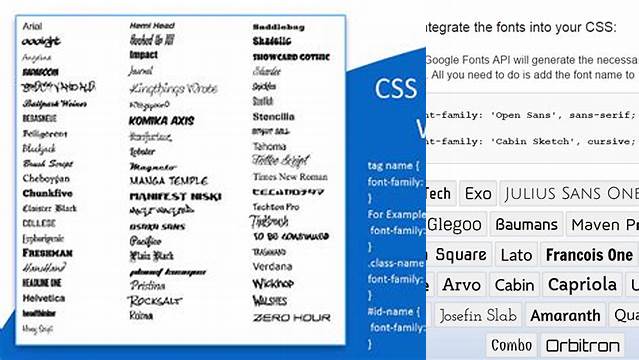
CSS Font Family & Google Fonts: A Comprehensive Guide
Hey guys! Ever wondered how to make your website's text look amazing? Well, you've come to the right place! This guide dives deep into the world of font families in CSS and how to leverage the power of Google Fonts to create stunning typography for your web projects. Get ready to unleash your inner designer!
Understanding Font Families in CSS
So, what exactly is a font family in CSS? Think of it as a way to tell your browser what fonts to use for the text on your website. It's not just about picking a single font; it's about creating a fallback system. This is crucial because not everyone has the same fonts installed on their computers. If you specify only one font and a user doesn't have it, their browser will use a default font, which might not be what you intended. That's where the beauty of font families comes in!
A font family is essentially a list of font names, prioritized in order of preference. The browser will go through the list, trying each font until it finds one that's available on the user's system. If none of the specified fonts are found, the browser will fall back to a generic font family. These generic families are like safety nets, ensuring that your text is always readable, even if it doesn't look exactly as planned. The five generic font families are serif, sans-serif, monospace, cursive, and fantasy. Let's break them down:
- Serif: These fonts have small decorative strokes, called serifs, at the ends of the letters. They often convey a classic and formal feel. Think Times New Roman or Georgia.
- Sans-serif: These fonts don't have serifs, giving them a cleaner, more modern appearance. Arial and Helvetica are popular examples.
- Monospace: In monospace fonts, each character takes up the same amount of horizontal space. This is commonly used for code snippets or text that needs precise alignment. Courier New is a classic monospace font.
- Cursive: These fonts resemble handwriting and often add an elegant touch. Brush Script MT is a well-known cursive font.
- Fantasy: Fantasy fonts are highly decorative and can be used for special headings or design elements. They're not typically suitable for body text. Impact is a popular fantasy font.
When you declare a font family in CSS, you should always include a generic font family as the last item in the list. This ensures that the browser has a fallback option in case none of your preferred fonts are available. For example, if you want to use the font "My Custom Font", but you know it might not be installed on everyone's computer, you could use the following CSS:
body {
font-family: "My Custom Font", sans-serif;
}
In this case, the browser will first try to use "My Custom Font". If it can't find it, it will fall back to a generic sans-serif font like Arial or Helvetica. This ensures that your text will always be legible, even if it doesn't look exactly the way you intended. Remember, choosing the right font family is crucial for readability and the overall aesthetic of your website. It sets the tone and personality of your content, so take your time and experiment to find the perfect fit!
Unleashing the Power of Google Fonts
Okay, now let's talk about Google Fonts! This is where things get really exciting. Google Fonts is a free library of over a thousand fonts that you can easily use on your website. No more being limited to the standard web-safe fonts! This opens up a whole new world of typographic possibilities.
Why is Google Fonts so awesome? Well, for starters, it's free. That's a huge win! You don't have to pay licensing fees or worry about font distribution. Plus, Google Fonts are served from Google's servers, which means they're optimized for fast loading times. This is crucial for website performance, as slow-loading fonts can negatively impact the user experience. Another significant advantage is the sheer variety. With over a thousand fonts to choose from, you're sure to find the perfect font (or fonts!) to match your website's style and personality.
So, how do you actually use Google Fonts on your website? It's super easy! There are a few different ways to do it, but the most common method is to link to the Google Fonts stylesheet in your HTML. Here's how it works:
Head over to the Google Fonts website (fonts.google.com).
Browse the font library and find the font(s) you want to use. You can use the filters on the left-hand side to narrow down your search by categories like serif, sans-serif, handwriting, and more. You can also search for specific fonts by name.
Click on the font you're interested in to view its details. This will show you different weights and styles of the font, as well as example text.
Select the styles you want to use. Google Fonts lets you choose which weights (e.g., regular, bold, italic) you want to include. It's a good idea to only select the styles you actually need, as each additional weight adds to the file size and can impact loading times.